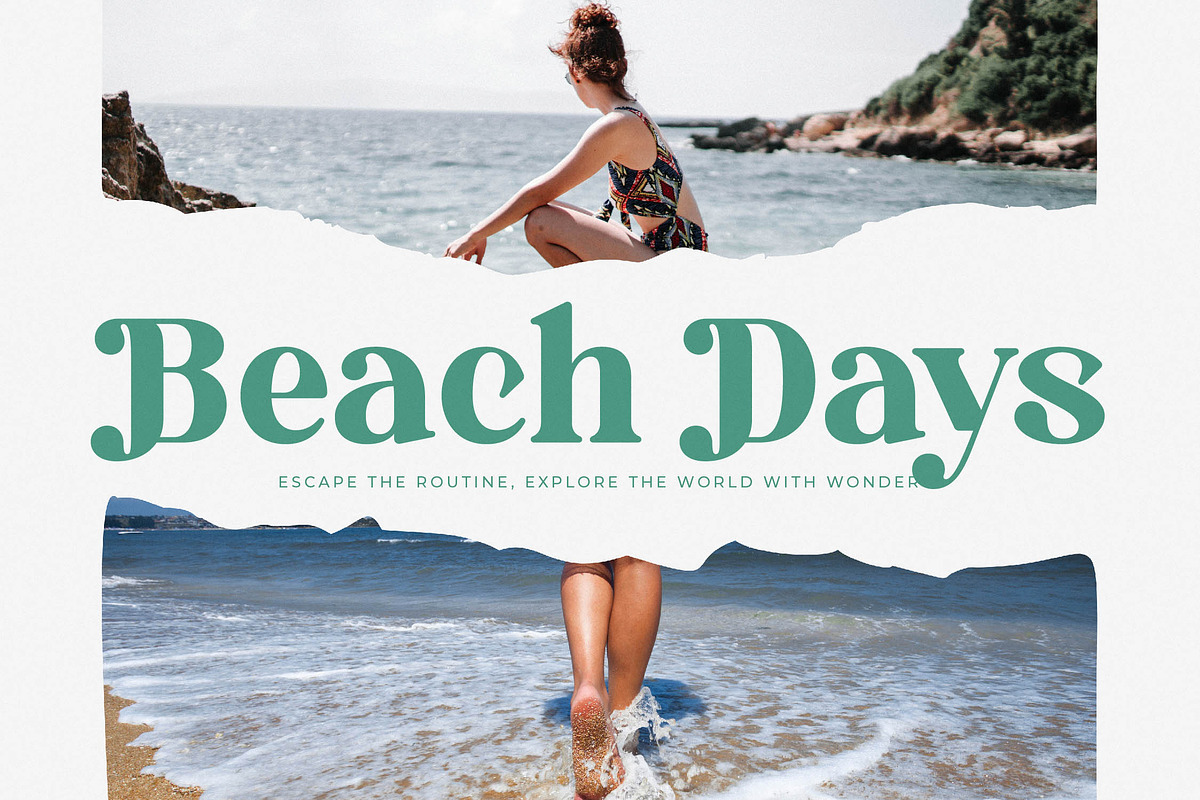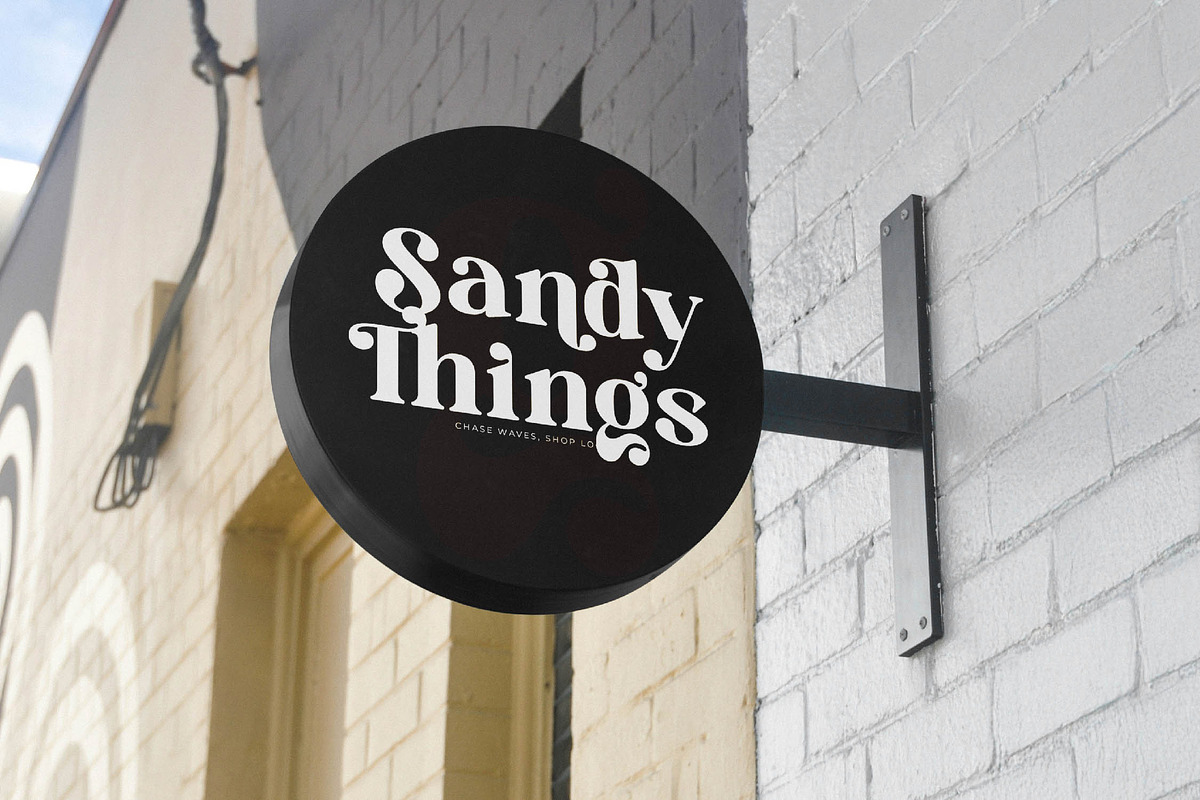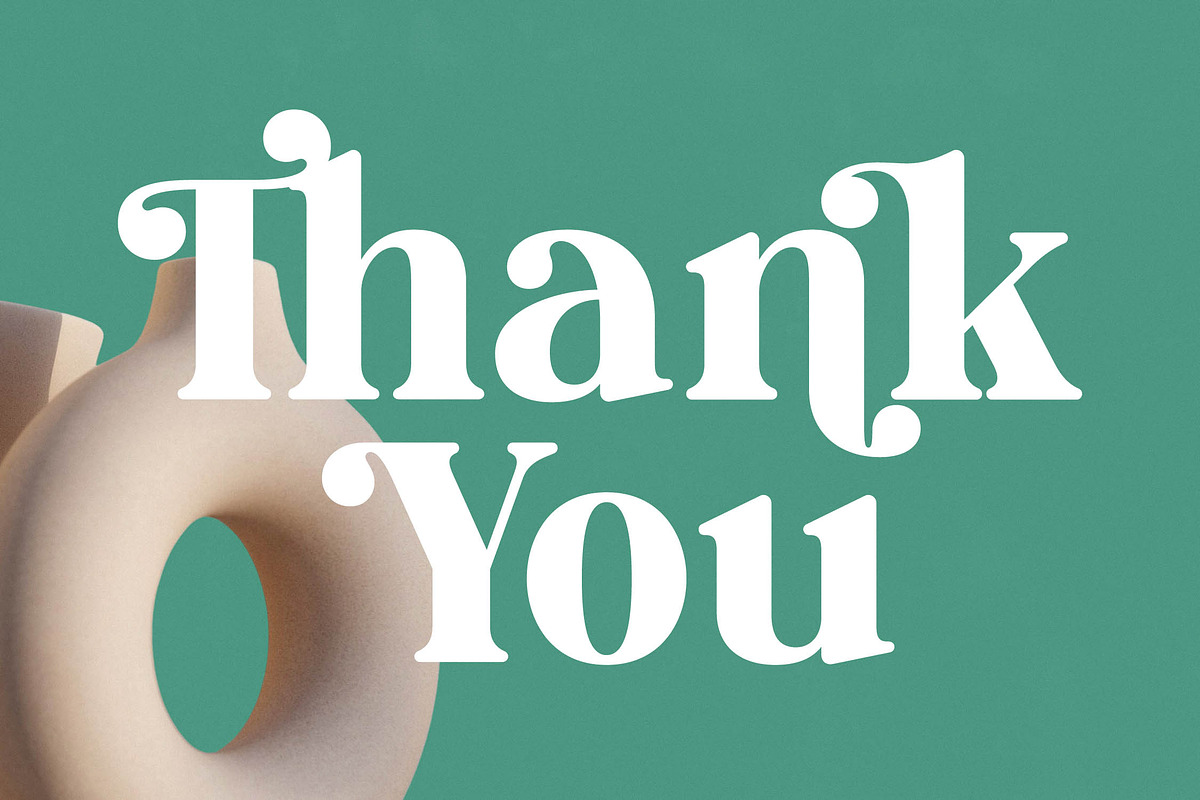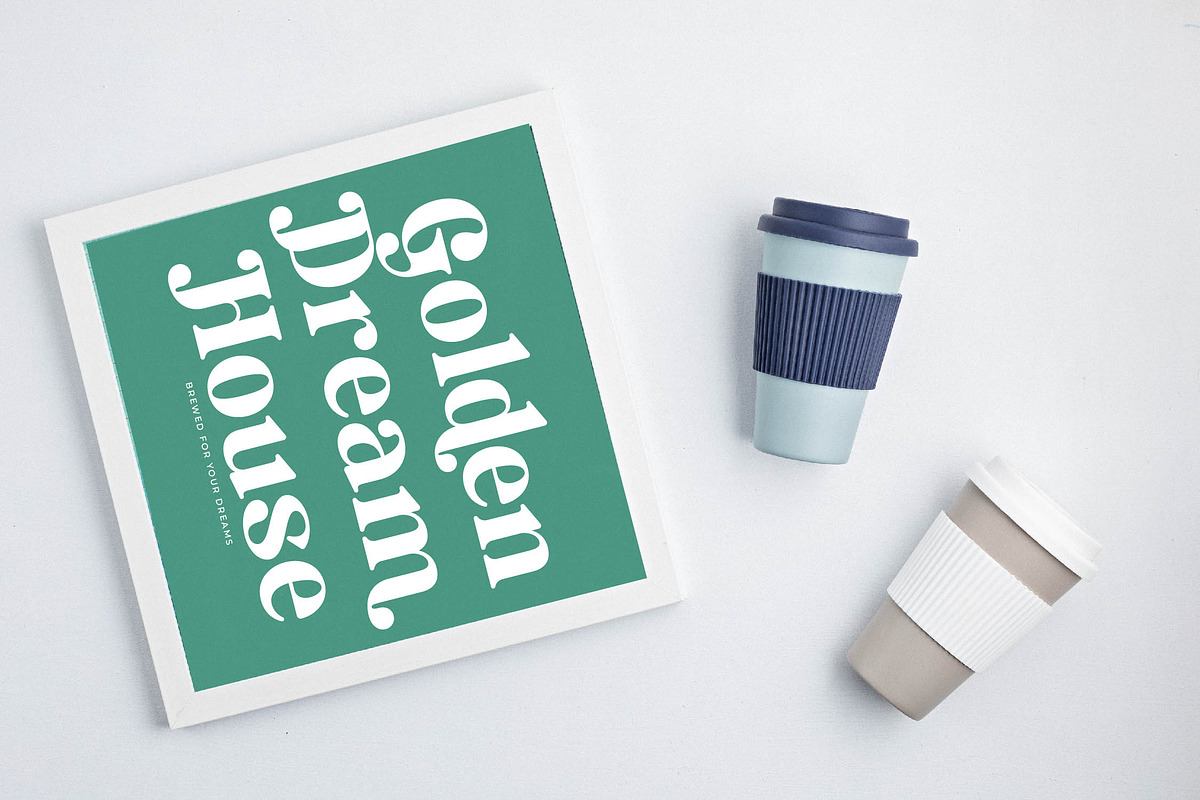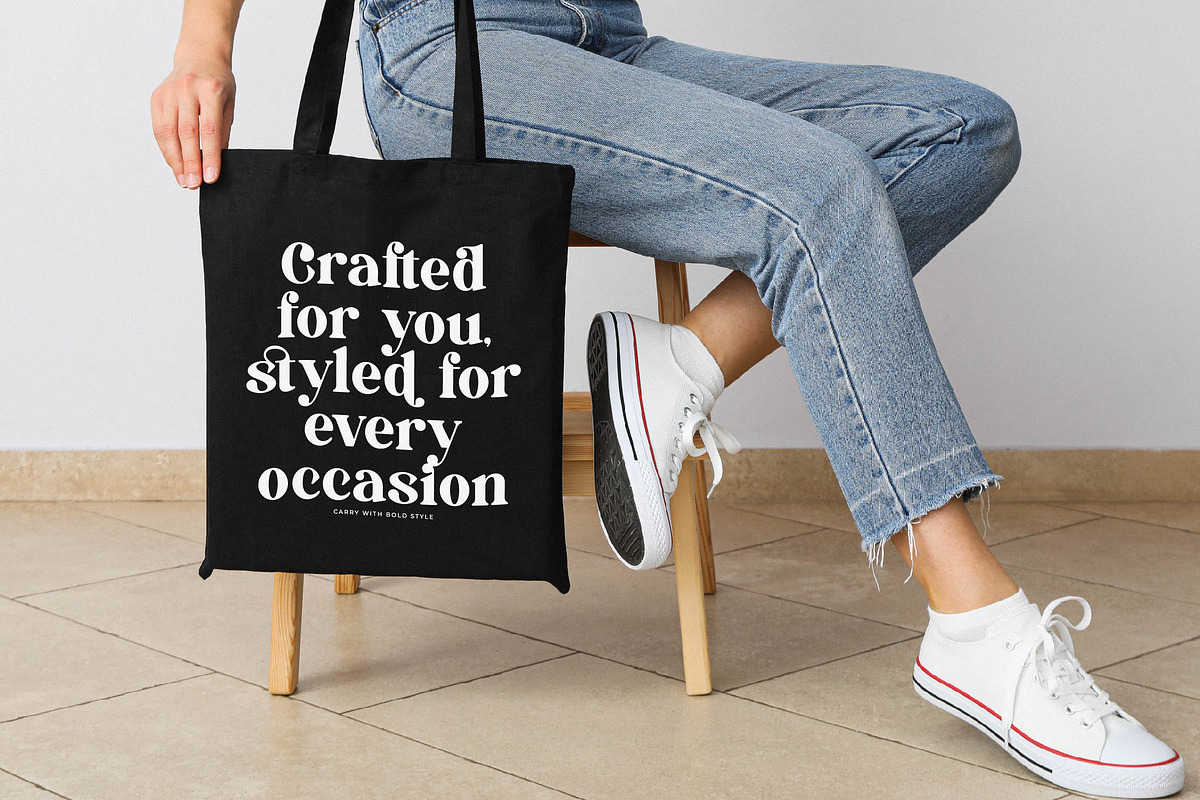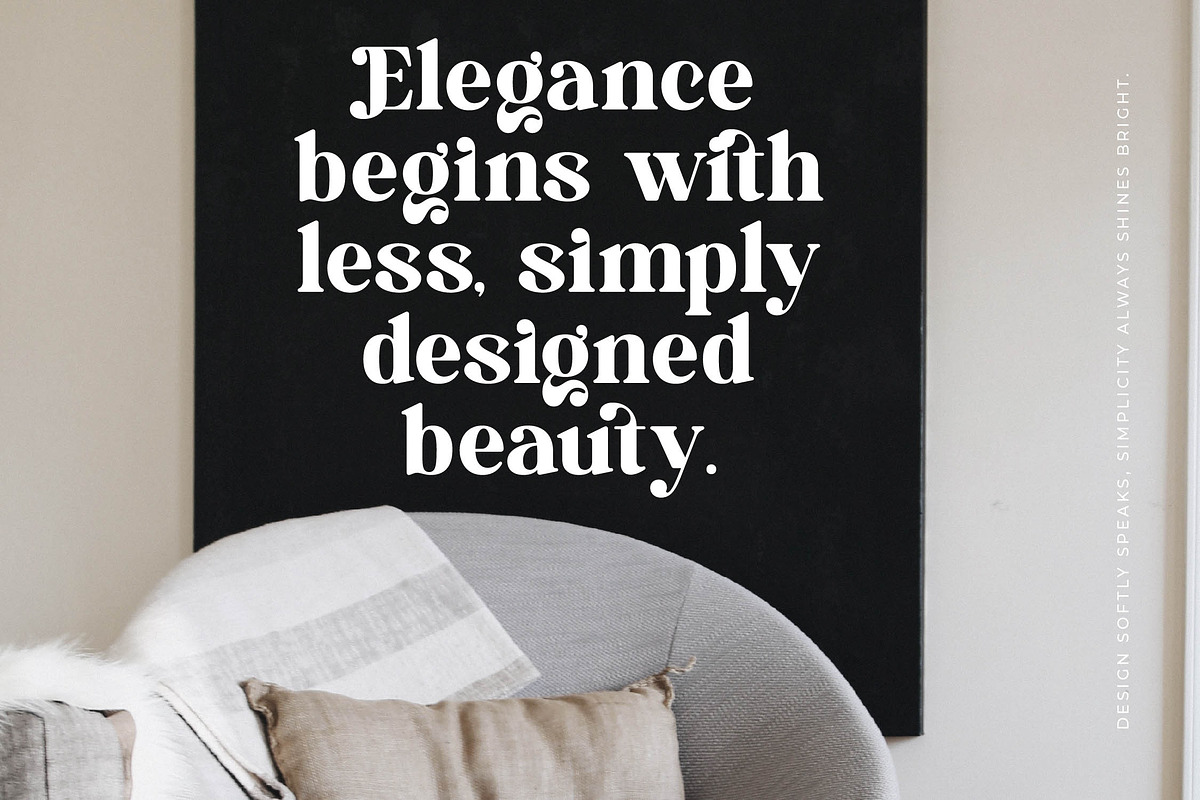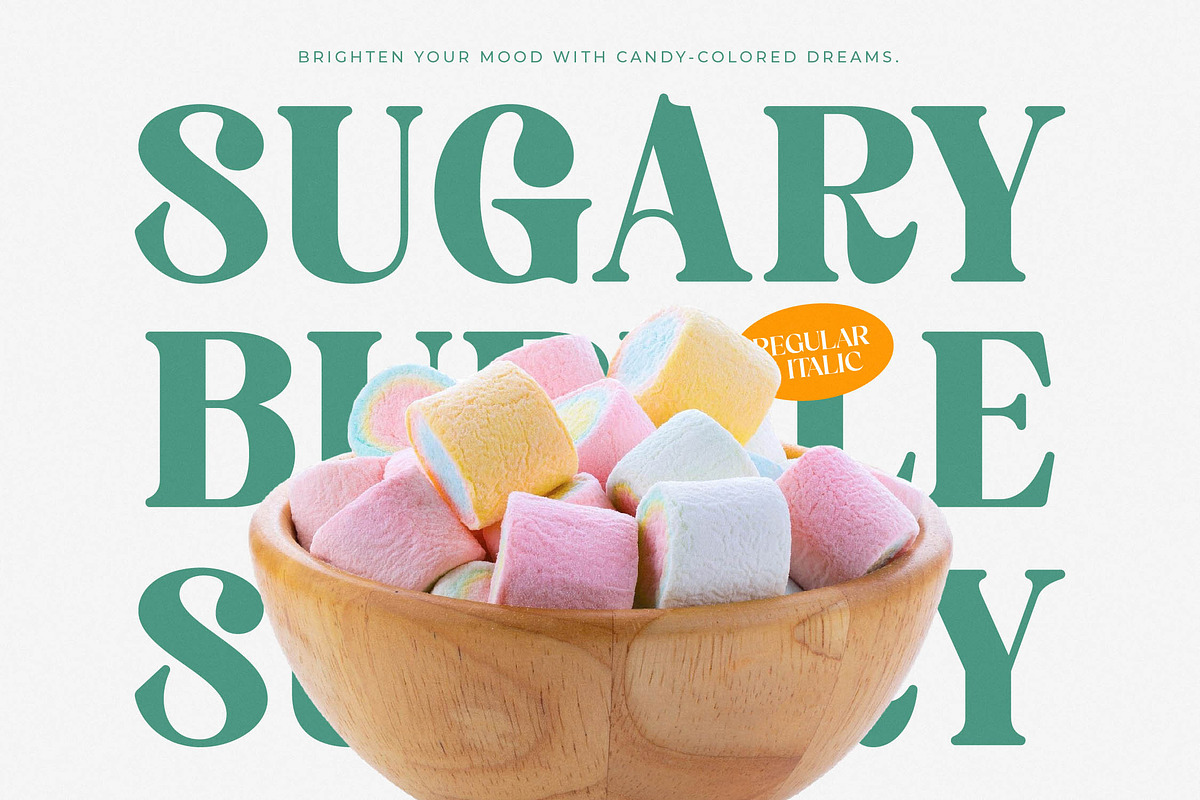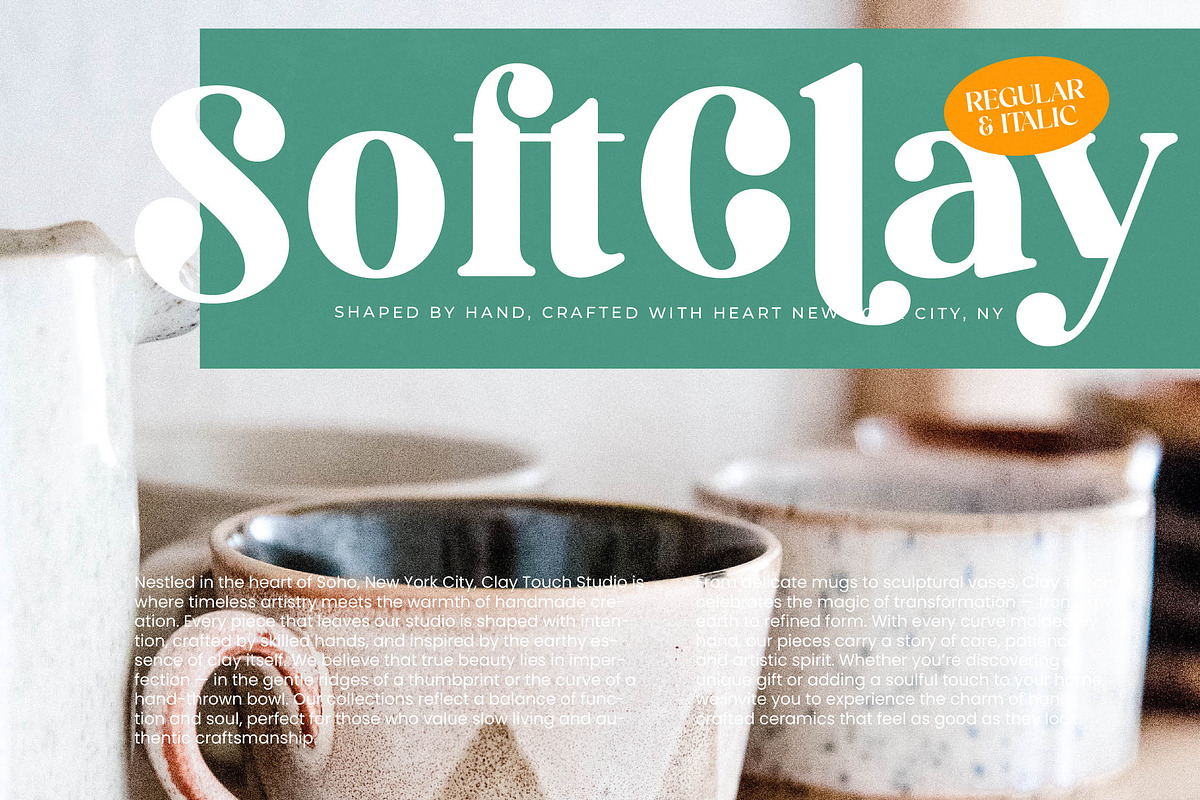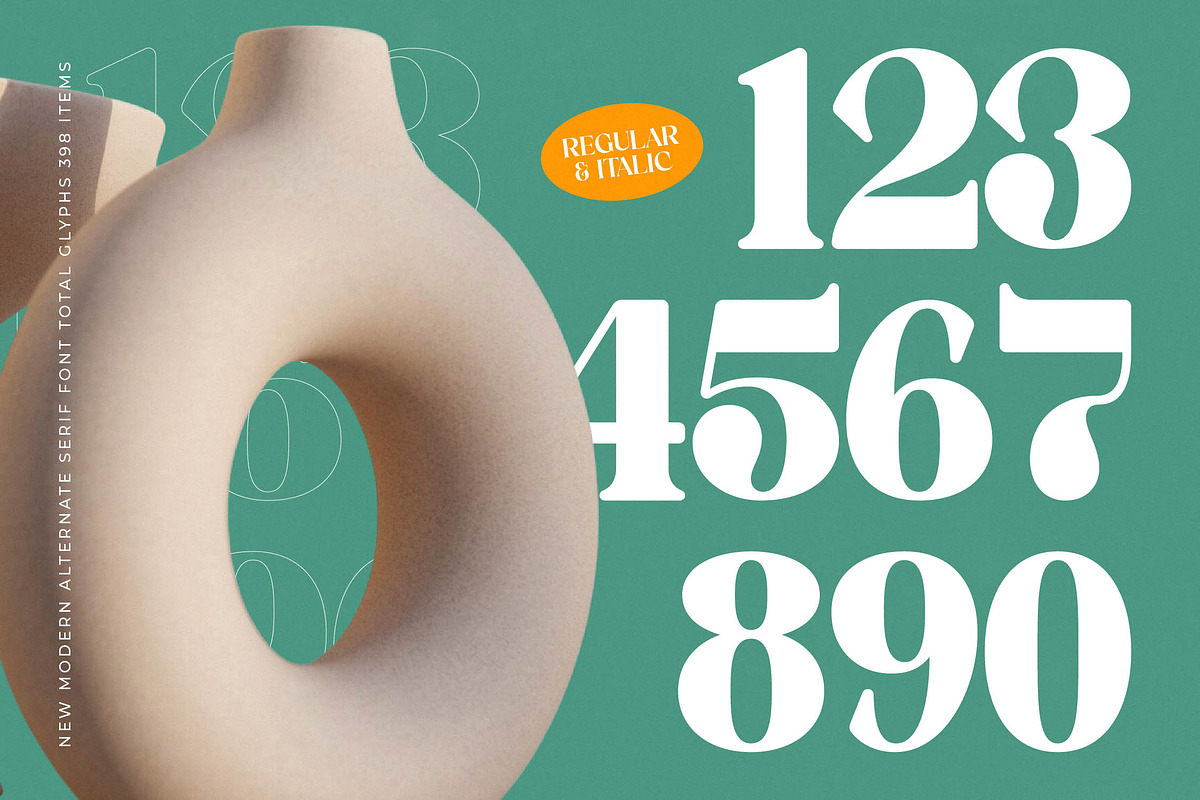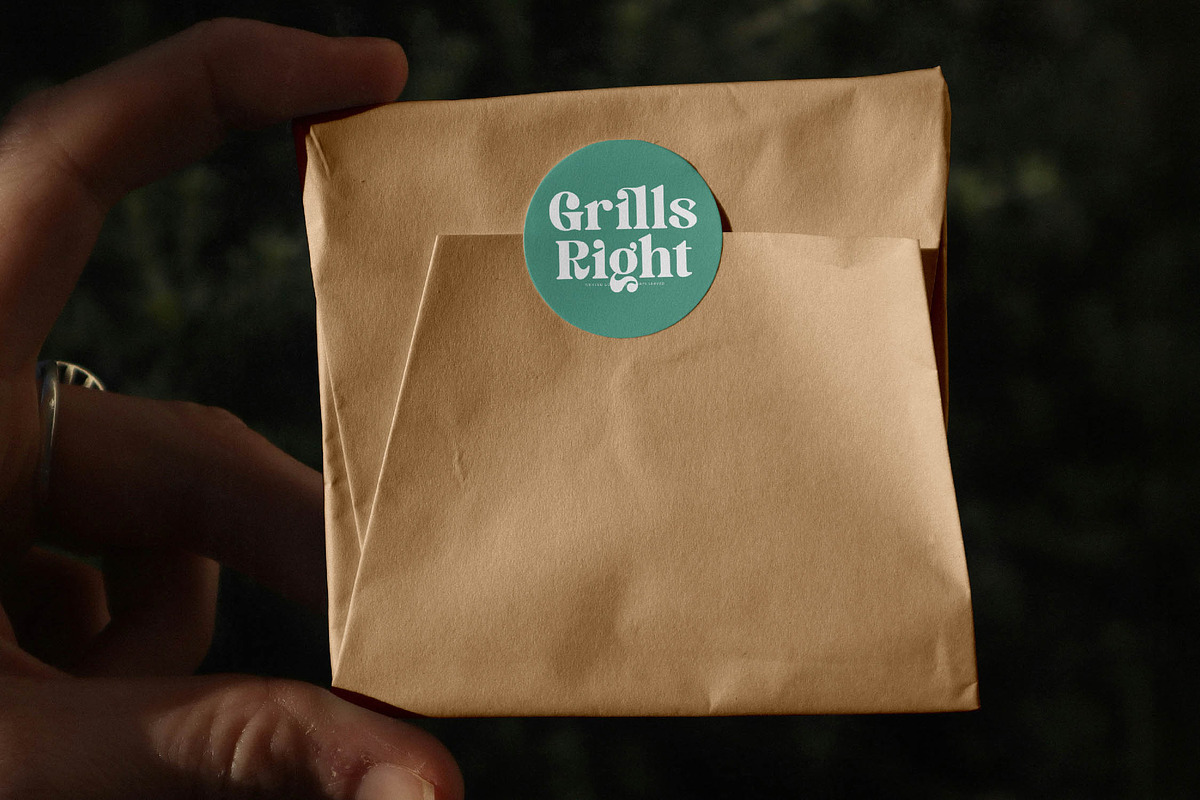
Royals Mugtile Modern Serif
Elevate your creative vision with Royals Mugtile, a typeface that balances timeless grace with contemporary edge. This font is crafted for designers who demand a signature look that feels both established and daringly new.
Inspired by the fluid silhouettes of high-fashion editorial layouts and the organic curves of avant-garde ceramics, it captures a sense of curated artistry. Every stroke reflects a meticulous attention to balance and flow, evoking an atmosphere of quiet luxury and deliberate style.
The modern serif display character of this typeface provides an unparalleled luxury typography experience. With its high-contrast serif design, it functions as a powerful editorial font that ensures maximum branding impact in any high-end project.
Aligning perfectly with the current modern serif trend, this typeface stands out among other editorial display fonts. It satisfies the growing demand for character-driven typography that prioritizes unique letterforms and artistic expression over generic styling.
This versatile family is the ideal choice for logo design, premium branding, and high-concept editorial spreads. Its refined aesthetic also makes it a stunning addition to luxury packaging, bespoke wedding invitations, and high-street fashion campaigns.
Equipped with a comprehensive set of ligatures and alternates, this font allows for endless customization. It includes decorative swashes and full multilingual support with international characters to cater to a global design audience.
- Ligature 28 Alternate 64